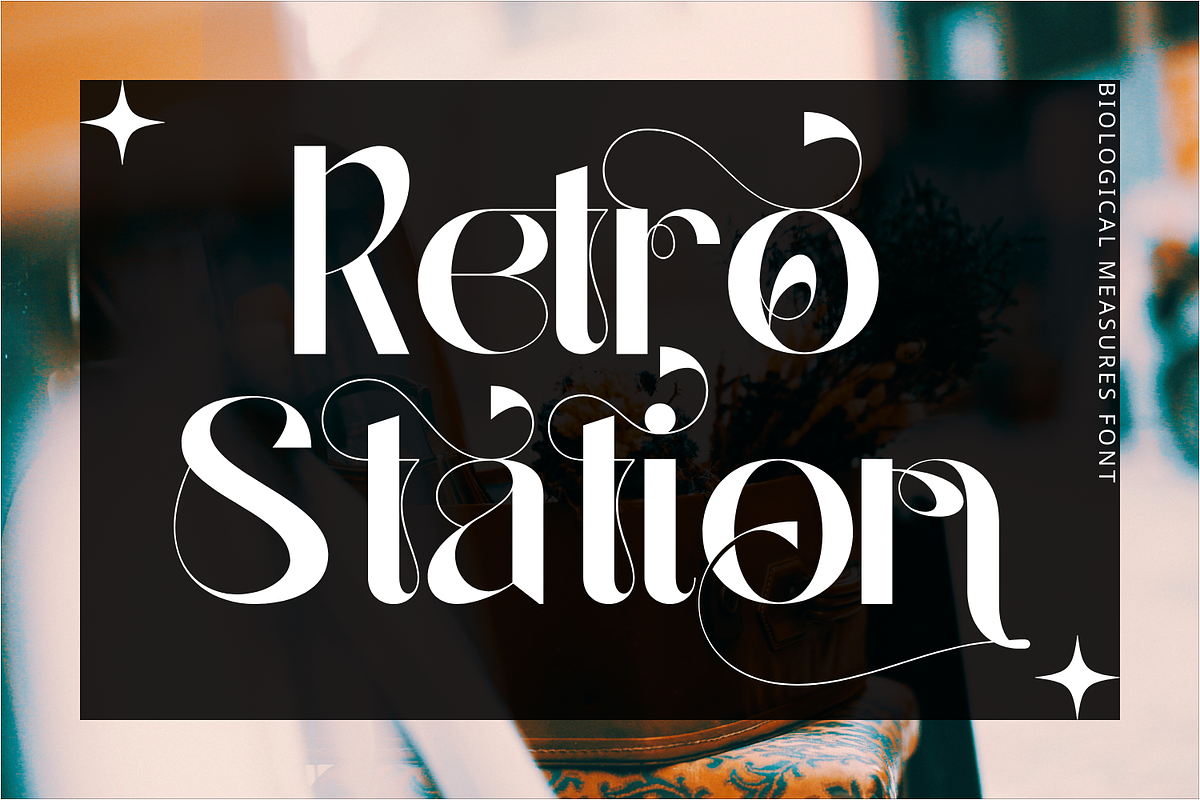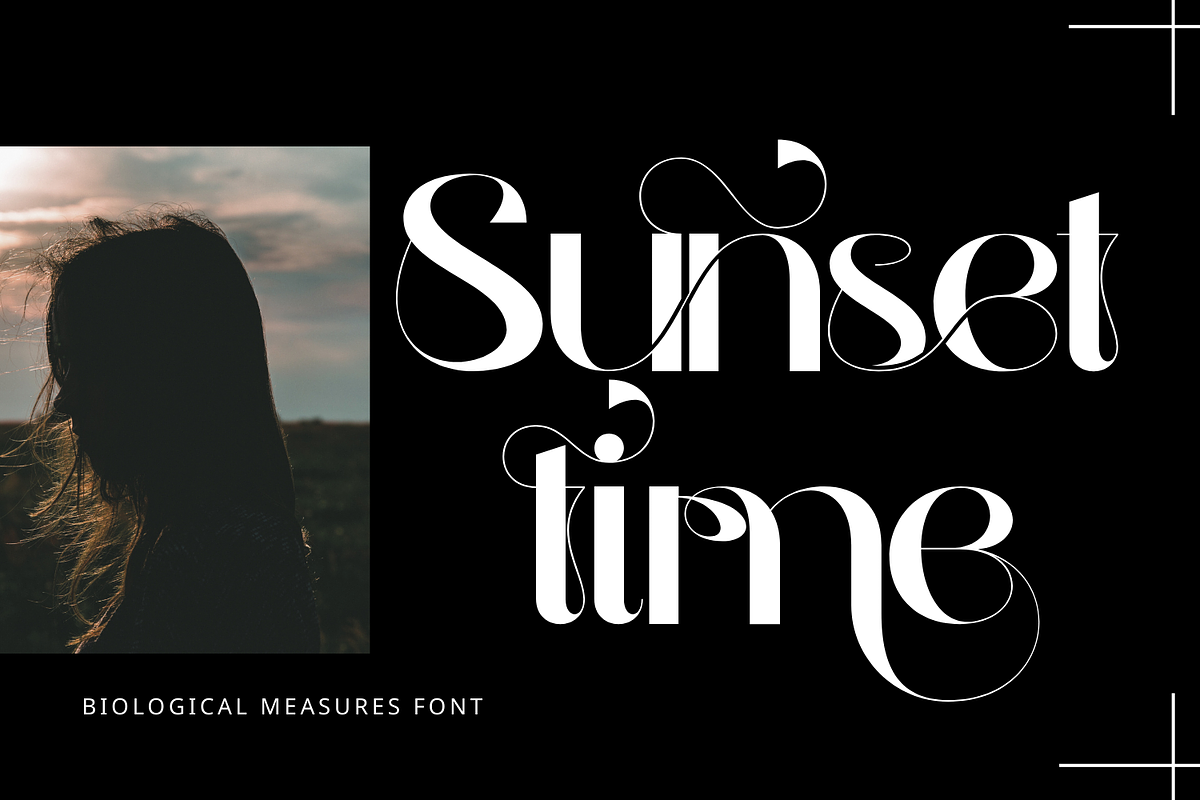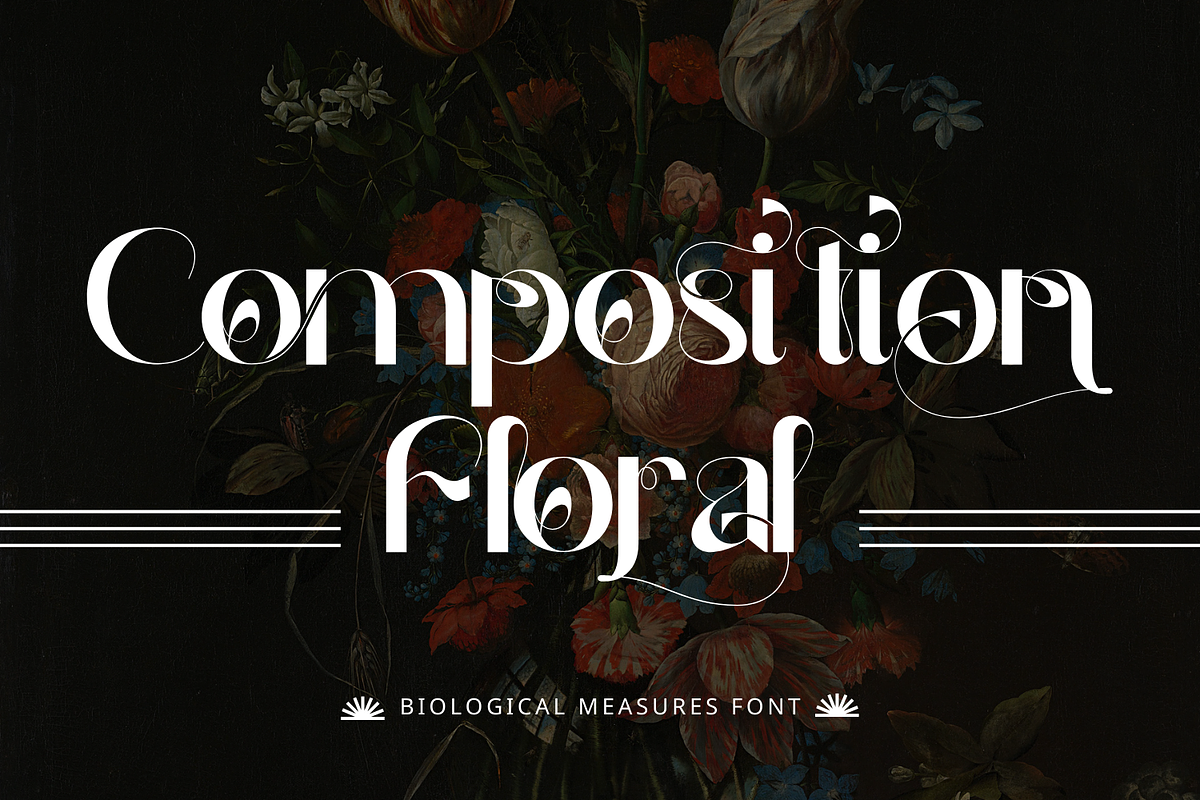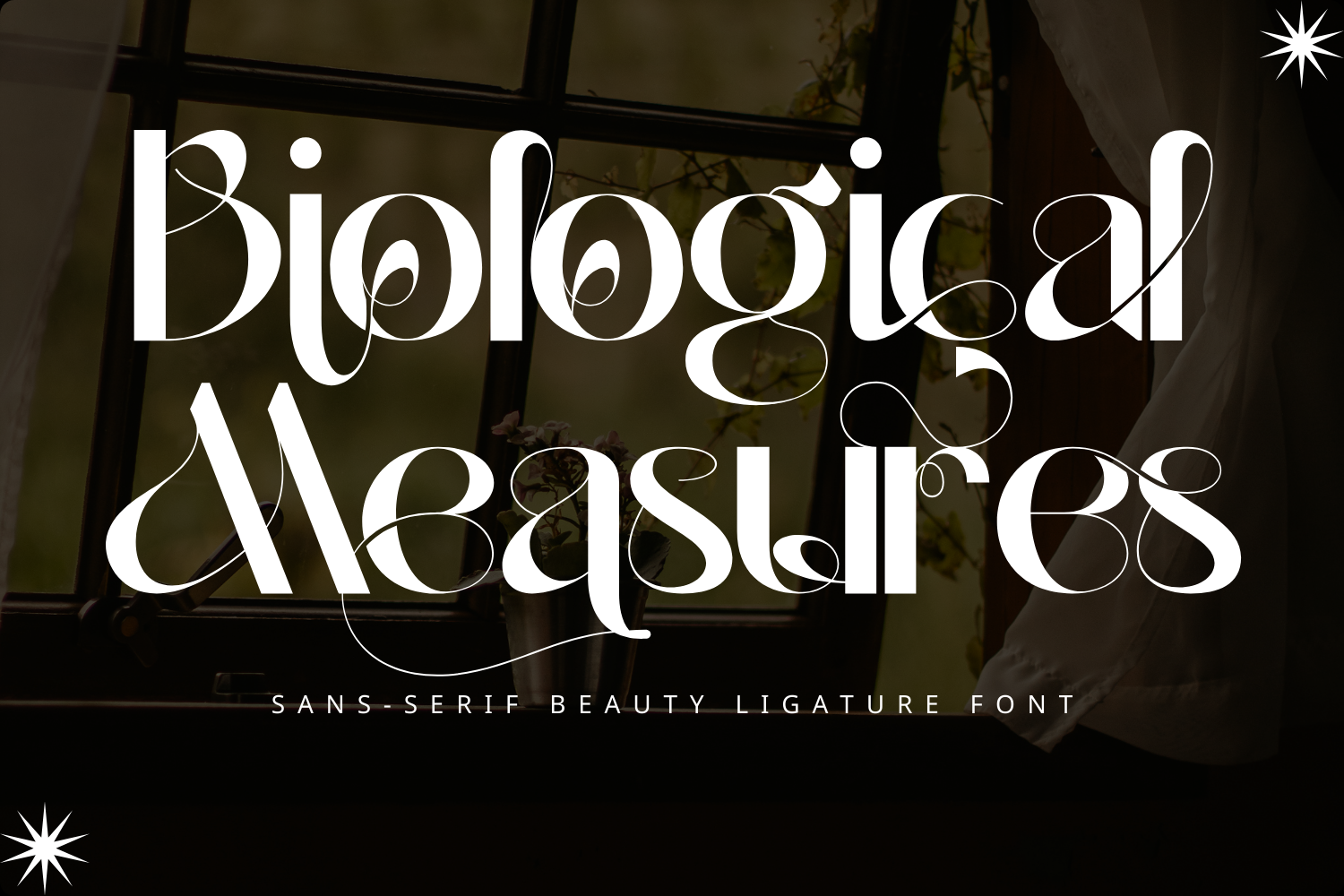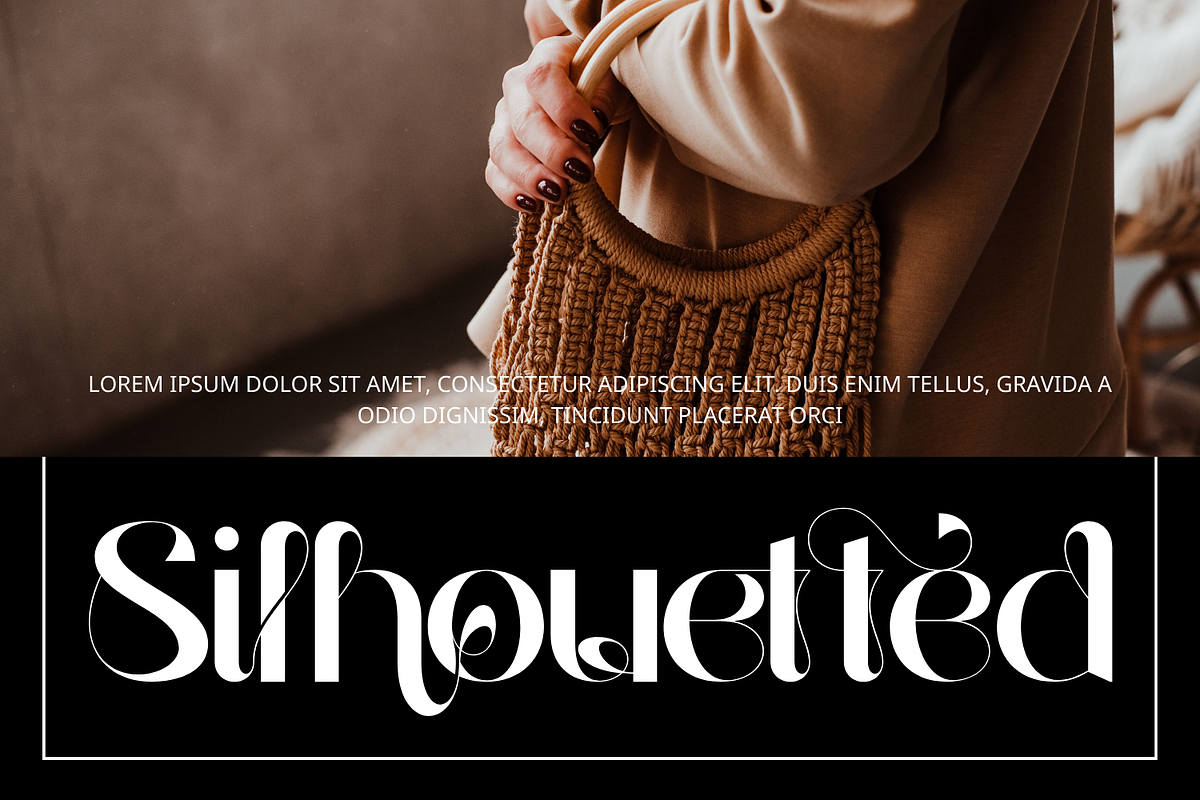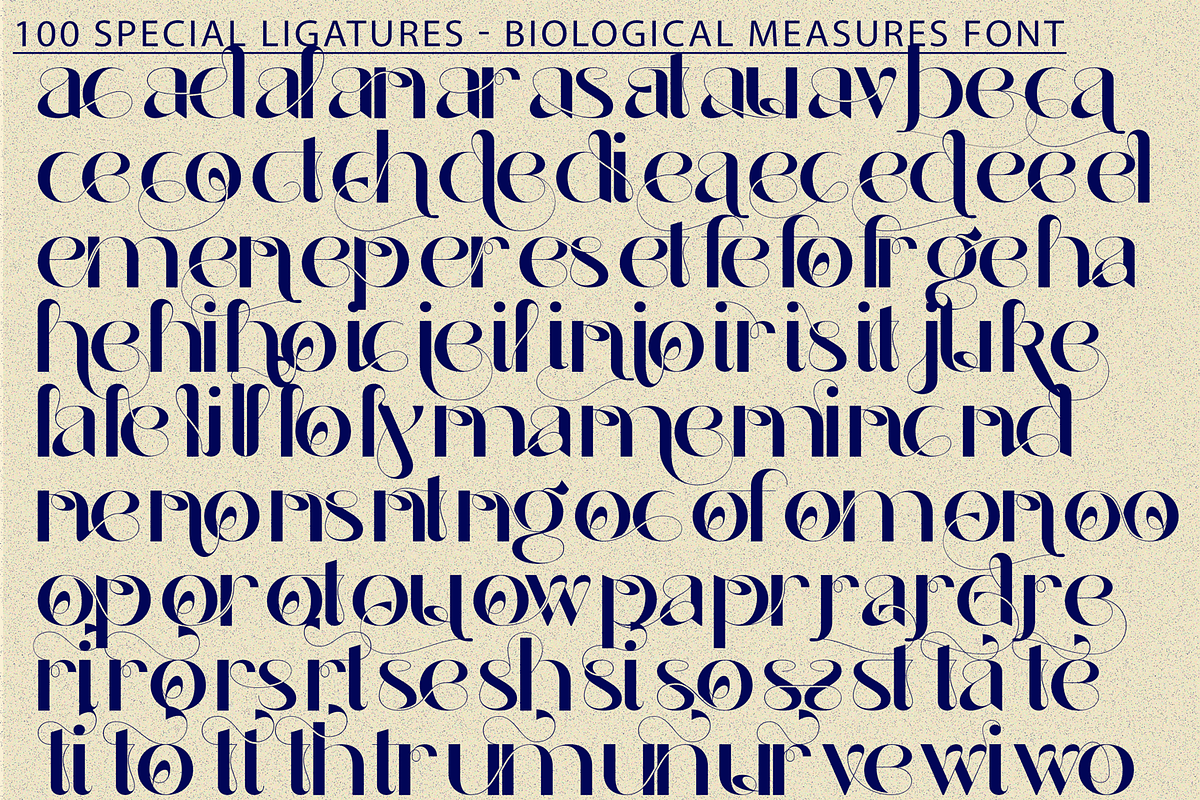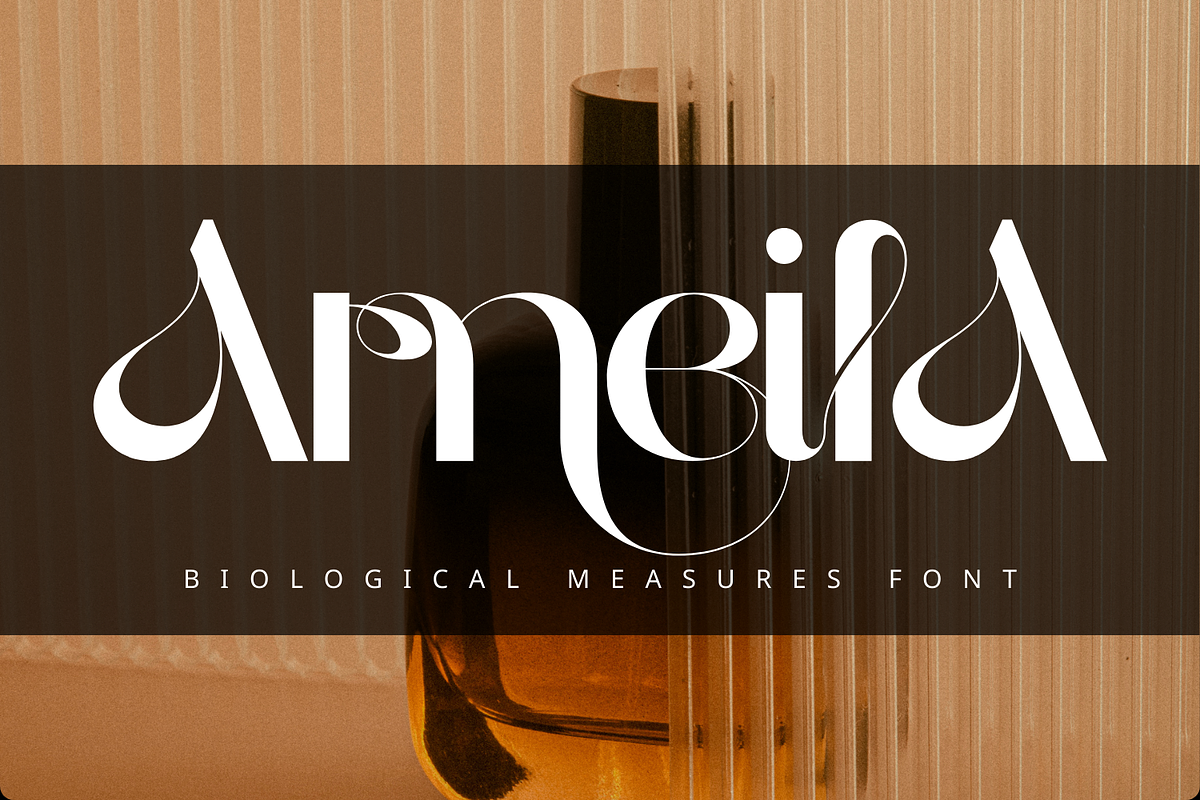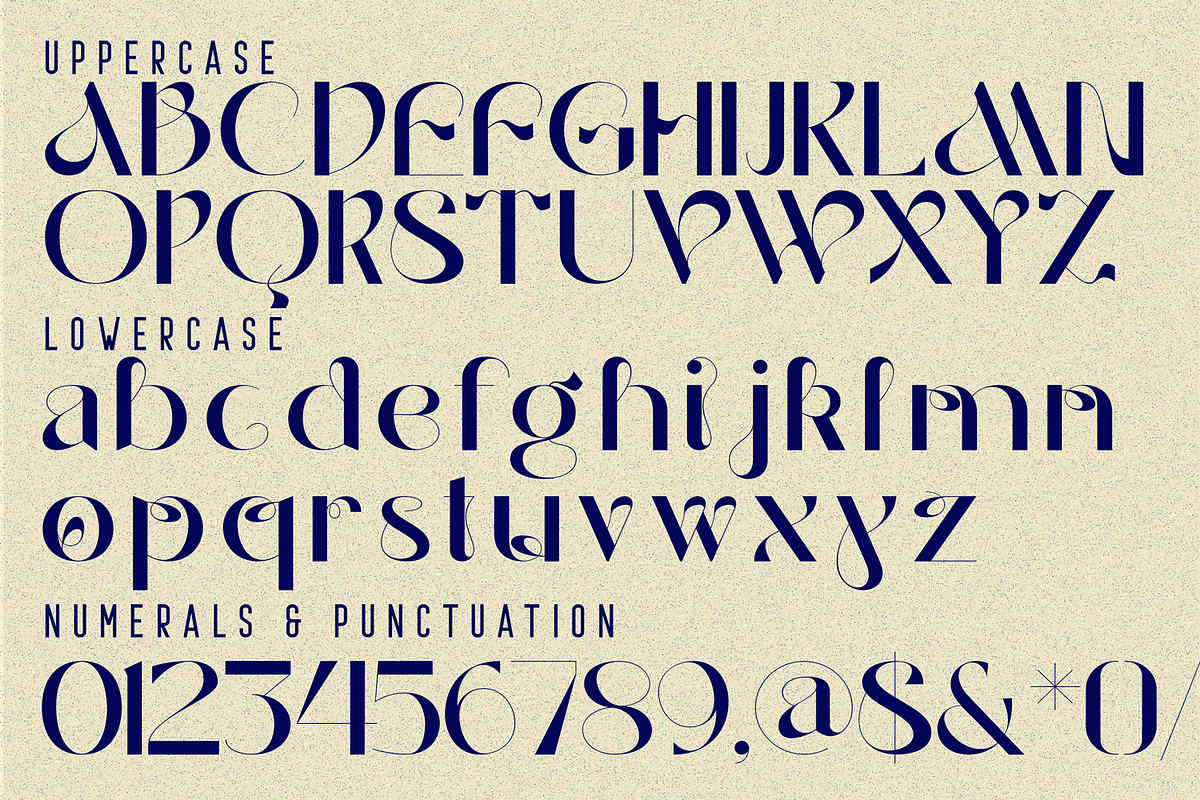
Biological Measures - Elegant Font
Biological Measures - Elegant Font is an elegant high-contrast Sans-serif display typeface inspired by luxury editorial design and romantic calligraphy. Featuring refined letterforms, graceful curves, and flowing swashes, this font brings a sophisticated and artistic touch to any composition. Including both Uppercase and Lowercase letters, approximately 100 custom special ligatures, complete Numerals & Punctuation, and extensive Accented characters, Biological Measures allows designers to create expressive, fluid, and visually captivating typography. Its decorative ligatures and extended swashes make it perfect for fashion branding, wedding invitations, beauty packaging, magazine covers, and high-end creative projects.
🔤Features:
- Uppercase & Lowercase Letters
- Around 100 Special Ligatures & Alternates
- Accented Characters for multilingual support
🔤About 100 ligatures combined with Stylistic Alternates Font:
ac ad al an ar as at au av be ca ce ch co ct de di ea ec ed ee el em en ep er es et fe fo fr ge ha he hi ho ie ic il in io ir is it ju ke la le li ll lo ly ma me mi nc nd ne ng no nt ns oc of om on oo op or ot ou ow pa pr ra rd re ri ro rs rt se sh si so ss st ta te th ti to tr tt um un ur ve wi wo